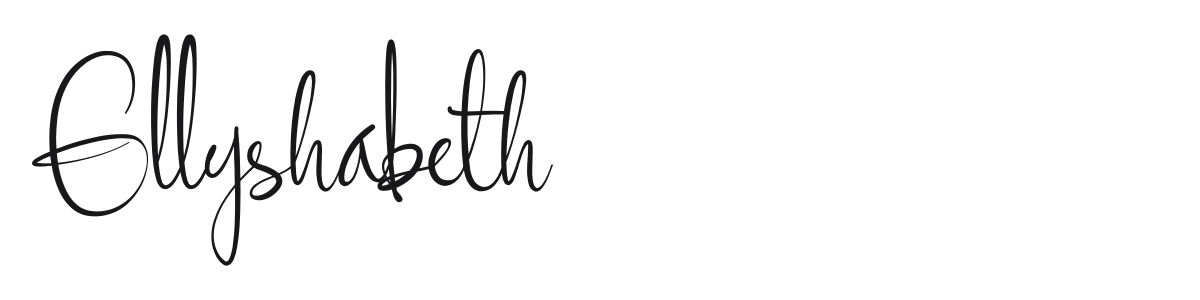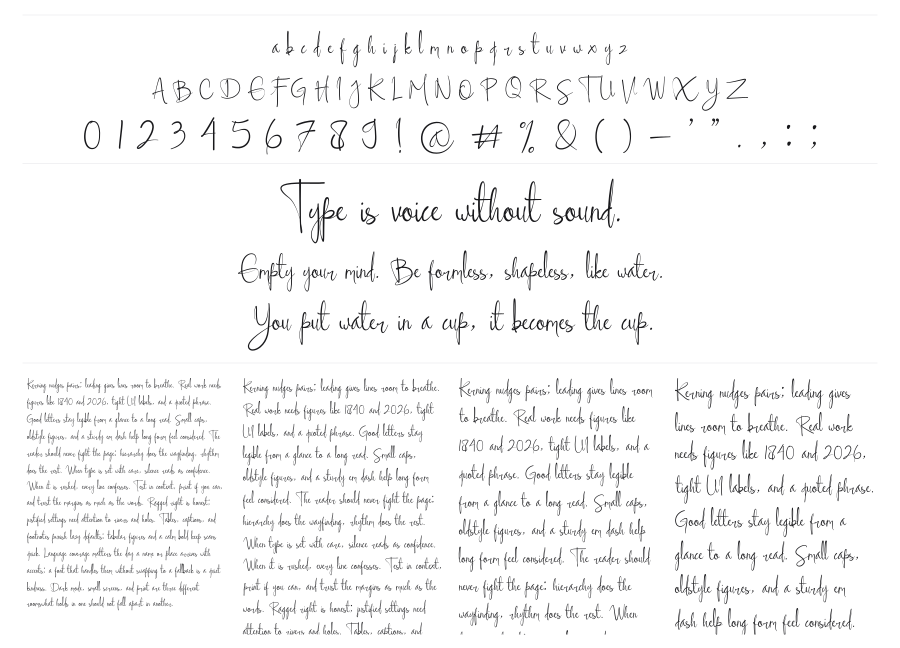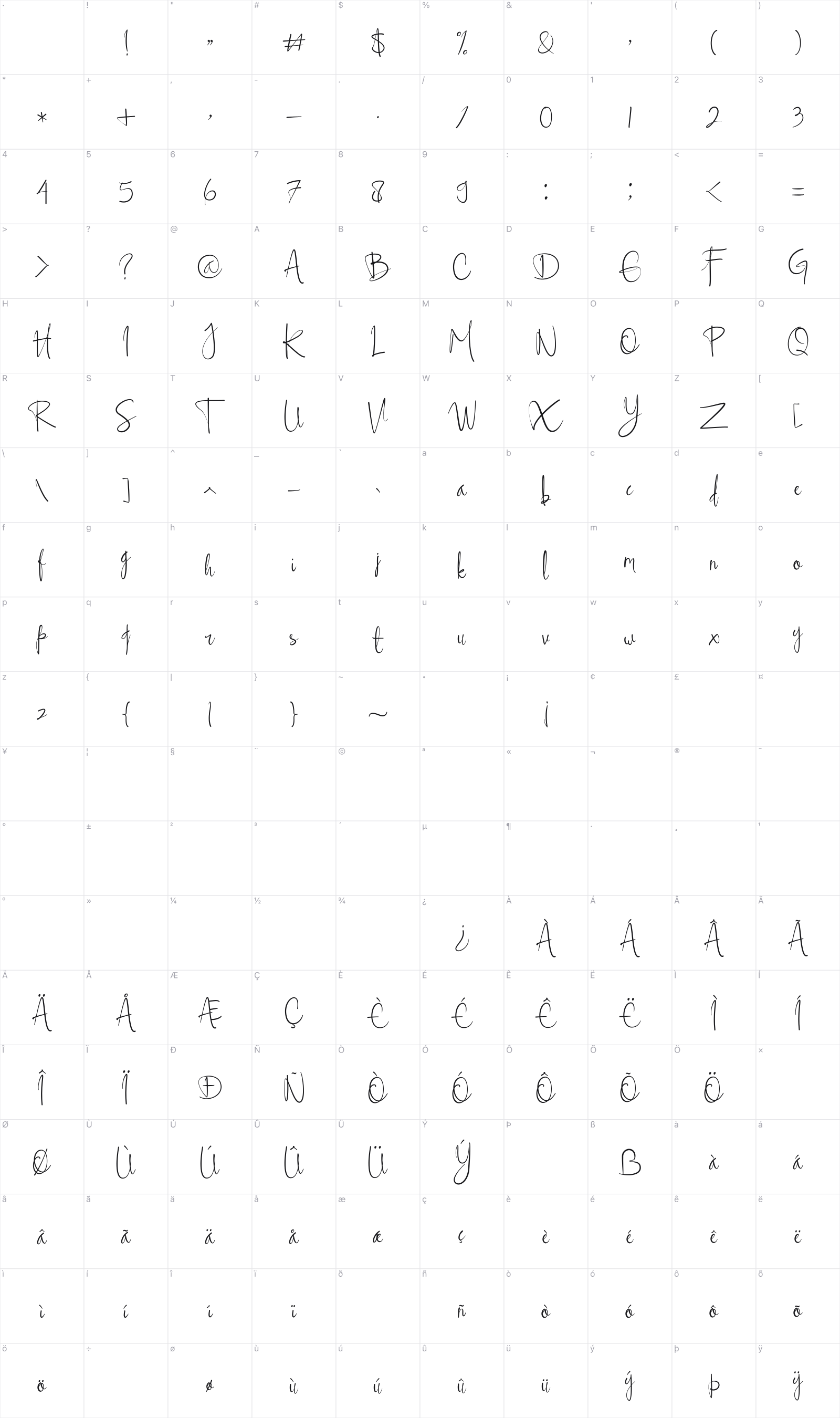
Ellyshabeth
Ellyshabethis a flowing casual script with thin looping strokes and a natural handwritten feel. The generous ascenders and long swash-like connections give it an airy, romantic quality that sits somewhere between spontaneous journaling and refined calligraphy. It works well for wedding stationery, product packaging, and brand identity work where a personal, handcrafted touch is needed.